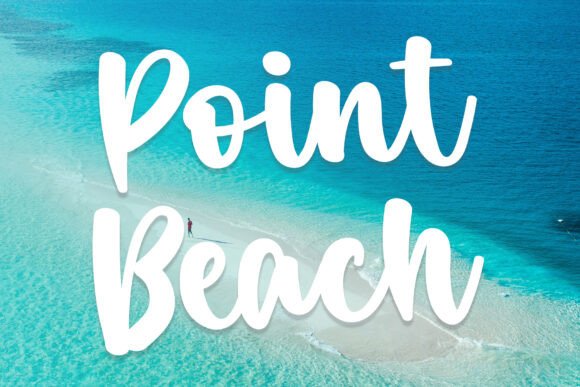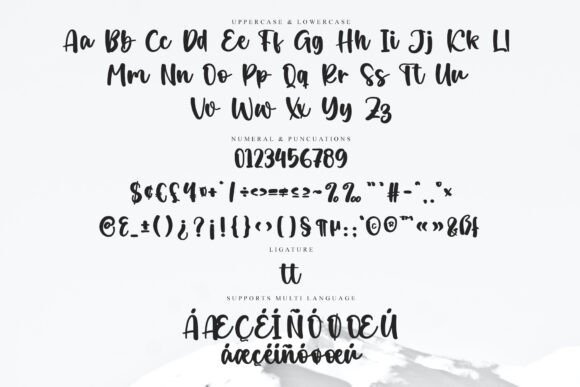
Point Beach Font
Point Beach is a breezy, handwritten script font that brings the carefree vibe of the shoreline to your designs. With bold, fluid strokes and a playful bounce, this font captures the essence of summer fun, surf culture, and relaxed coastal living. Its stylish curves and smooth flow make it perfect for travel branding, beach party invitations, social media graphics, and tropical product packaging.